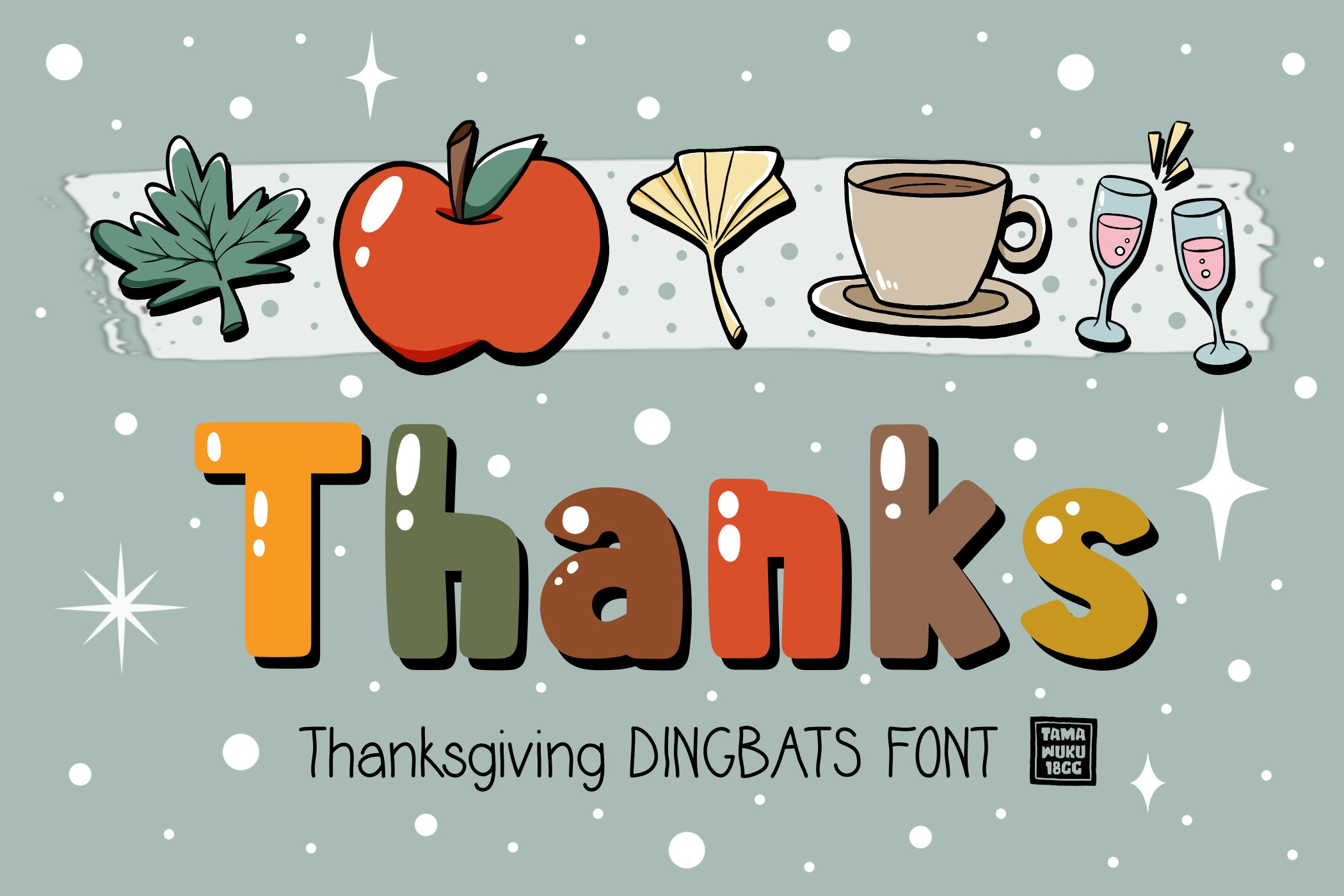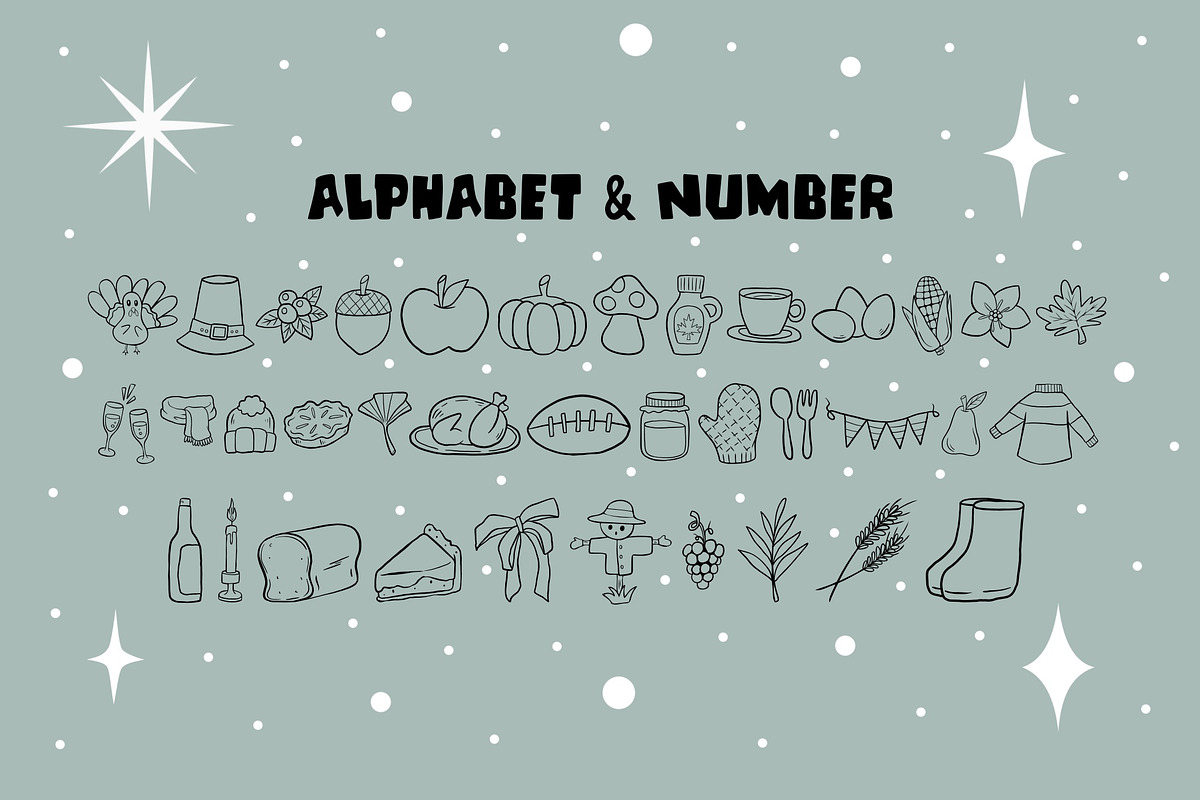
Thanksgiving OTF Dingbats Font
Thanksgiving is a cute dingbats font. This font is the perfect fit for all of your logos, wall art, signs, cards, art prints, t-shirts, coloring page, and much more!